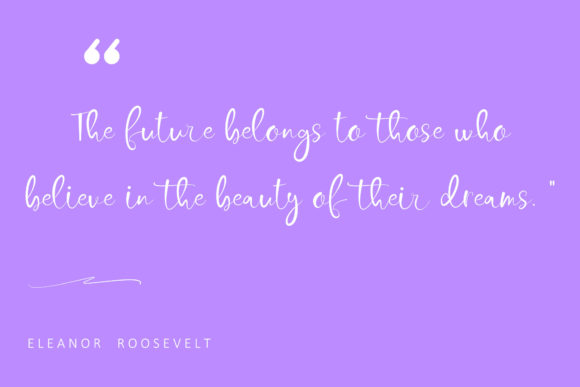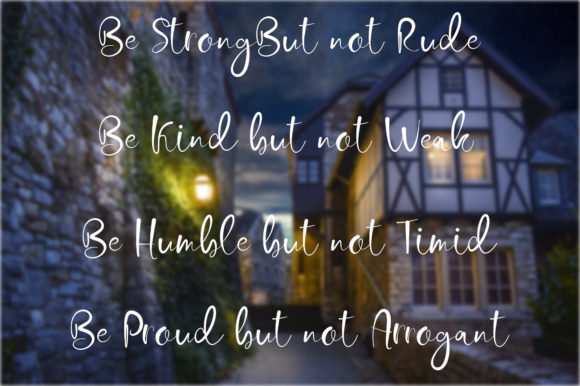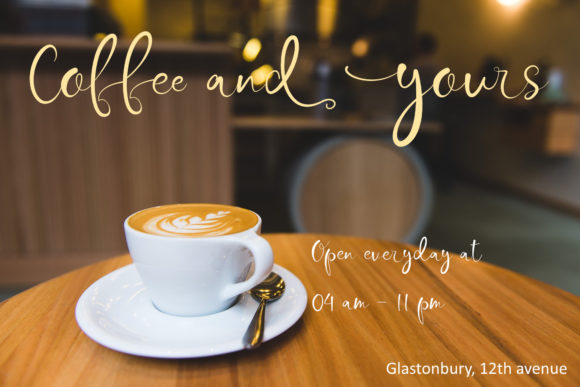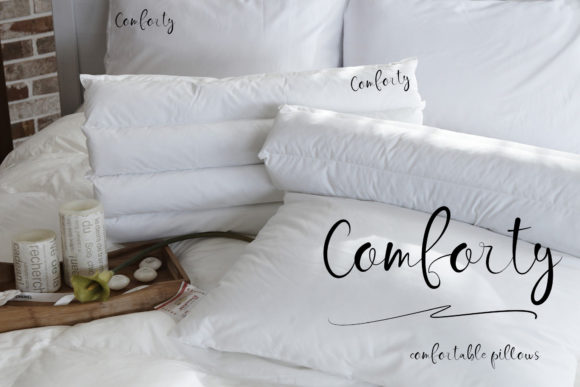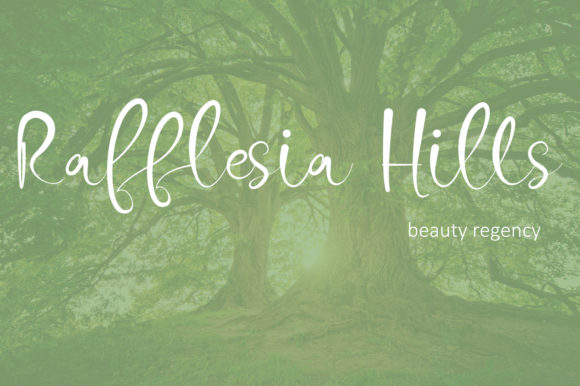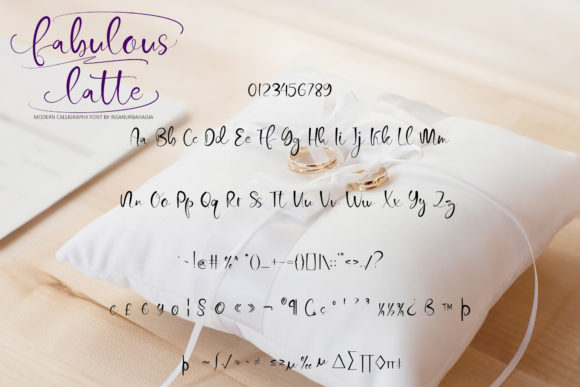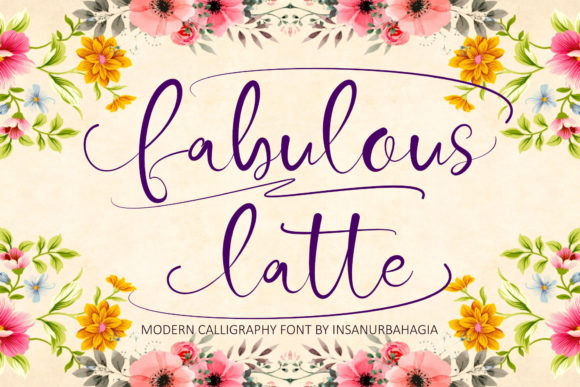
Fabulous Latte Font: Elevate Your Designs with a Delicate Touch
Are you a designer or crafter looking for a font that can add a touch of elegance and sophistication to your creative projects? Look no further than the Fabulous Latte font, a delicate and flowing handwritten font that is sure to make your designs come alive.
What is Fabulous Latte Font?
Fabulous Latte is a beautiful, handwritten font that is perfect for a variety of design projects, from invitations and stationery to branding and advertising. Its delicate and flowing lines give it a romantic and feminine touch, making it ideal for designs that require a touch of elegance.
Key Features of Fabulous Latte Font
So, what makes Fabulous Latte font so special? Here are some of its key features:
- Delicate and flowing lines: The font’s delicate and flowing lines give it a romantic and feminine touch, making it perfect for designs that require a touch of elegance.
- Handwritten style: The font’s handwritten style gives it a personal and unique touch, making it perfect for designs that require a human touch.
- Invitations and stationery: Use Fabulous Latte font to create beautiful invitations, greeting cards, and other stationery items.
- Branding and advertising: The font’s elegant and sophisticated style makes it perfect for branding and advertising projects, such as logos, brochures, and flyers.
- Digital design: Fabulous Latte font can also be used in digital design projects, such as website headers, social media graphics, and email newsletters.
Why Choose Fabulous Latte Font?
- Unique and elegant style: Fabulous Latte font has a unique and elegant style that will set your designs apart from the rest.
Tips for Using Fabulous Latte Font
- Pair it with other fonts: Fabulous Latte font can be paired with other fonts to create a unique and interesting design.
- Experiment with colors: The font’s delicate and flowing lines look great in a variety of colors, so don’t be afraid to experiment.
- Use it sparingly: Fabulous Latte font is a statement font, so use it sparingly to add a touch of elegance to your designs.
Fabulous Latte font is a beautiful and elegant handwritten font that is perfect for designers and crafters looking to add a touch of sophistication to their creative projects. Its delicate and flowing lines, PUA encoding, and handwritten style make it a versatile font that can be used in a variety of design projects. Whether you’re creating invitations, branding materials, or digital designs, Fabulous Latte font is sure to make your designs come alive.